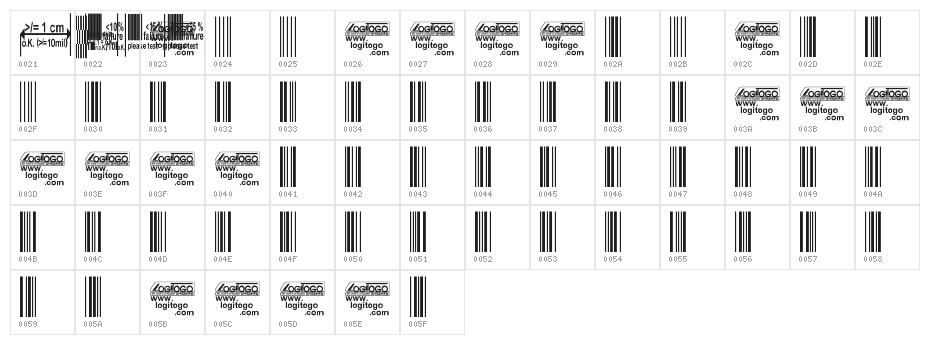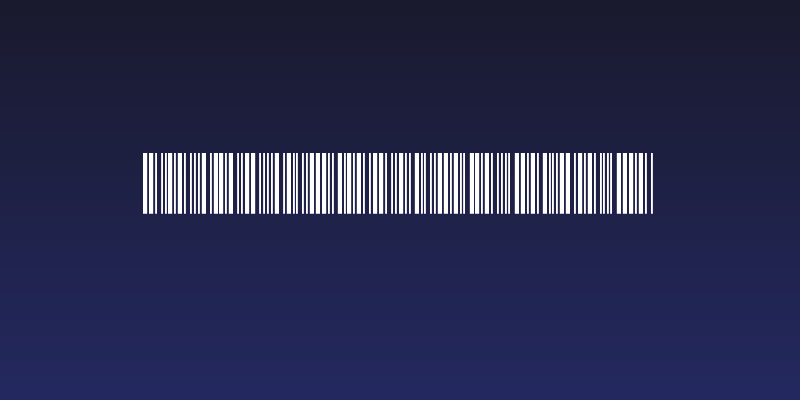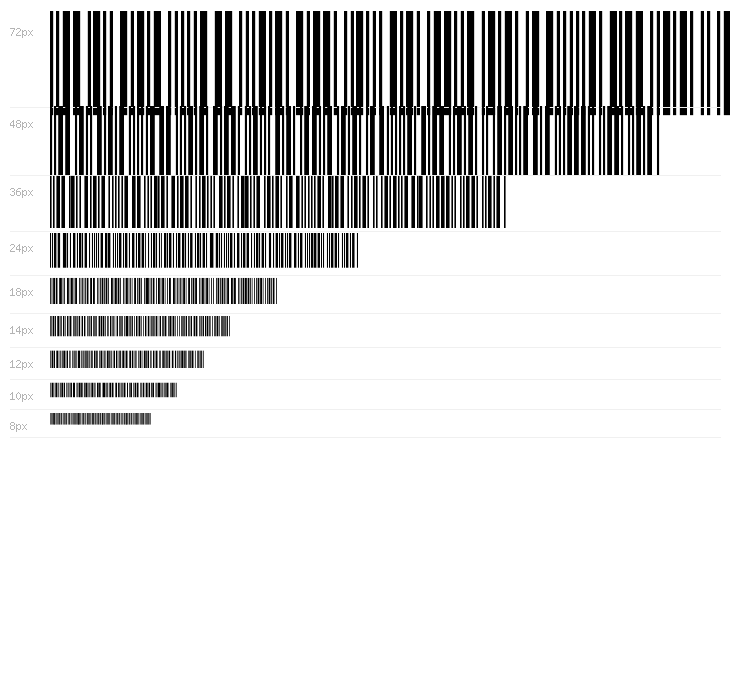
Code 39-hoch-Logitogo Font
Code 39-hoch-Logitogo Description
This font is a barcode typeface, specifically designed for encoding alphanumeric characters in a machine-readable format. It features a series of vertical bars and spaces of varying widths, which represent different characters. Each character is uniquely encoded, allowing for accurate scanning and data retrieval. The design is utilitarian, focusing on functionality and readability by barcode scanners rather than aesthetic appeal. The font is typically used in logistics, inventory management, and retail for labeling and tracking purposes.
| Overall Style | Utilitarian |
| Use Case | Logistics, Inventory management, Retail labeling |
| Proposed Projects | Ideal for product labeling, inventory tracking systems, and logistics management applications. |